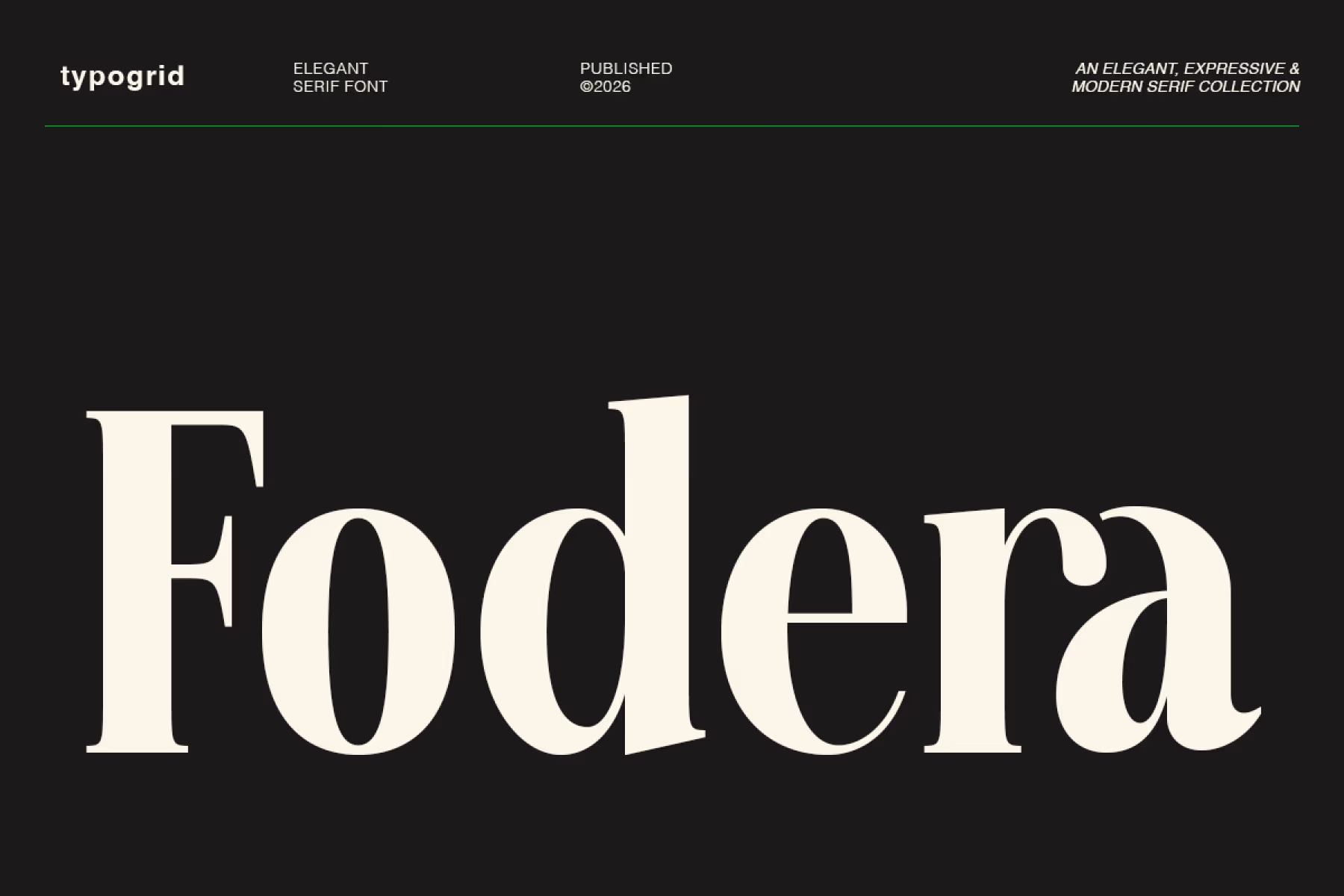
TG Fodera – Elegant Serif Font
TG Fodera – Elegant Serif Font is a stylish typeface that enhances visual appeal and works effortlessly in many design contexts. Fodera is a sophisticated serif typeface that blends timeless elegance with modern flair. Its high-contrast strokes, sculptural letterforms, and sharp serifs evoke a sense of luxury and editorial boldness — ideal for fashion, branding, and lifestyle design.
Crafted with care and precision, Fodera includes: • Beautiful ligatures for seamless letter combinations • Elegant alternates to add expressive typographic flair • Strong vertical rhythm and optical balance • Single weight with refined proportions for clear legibility
From magazine spreads and lookbooks to boutique logos and beauty packaging, Fodera brings a sense of drama, refinement, and visual harmony to every layout.
Features: • Serif Typeface • Single Weight • Ligatures & Alternates Included • Multilingual Support • Uppercase & Lowercase • Punctuation & Symbols • Ideal for Branding, Editorial Design, Packaging, and Display Use • Published ©2026
Where timeless beauty meets modern form — Fodera speaks with elegance, confidence, and intention.